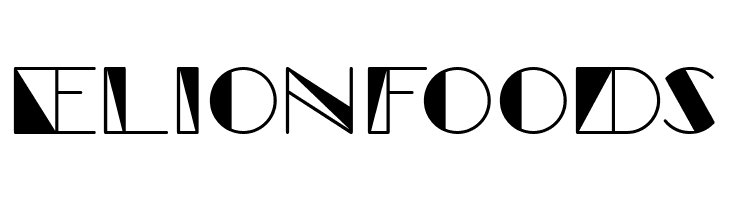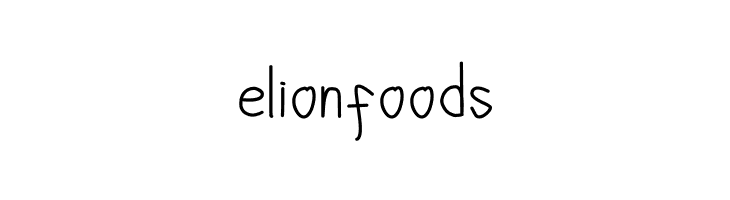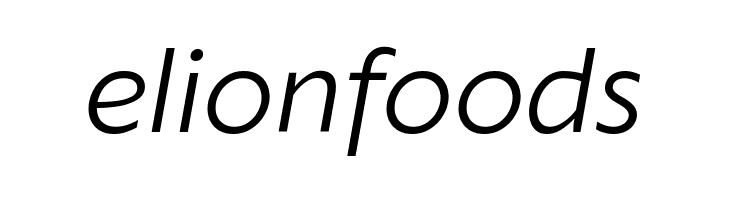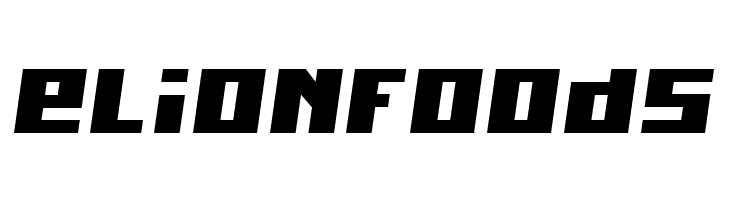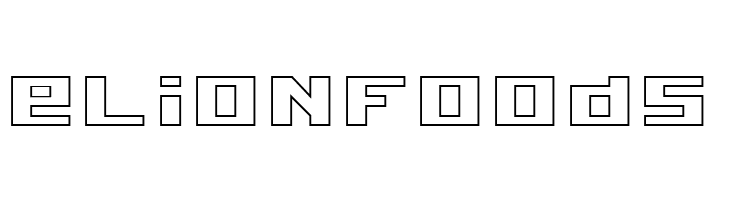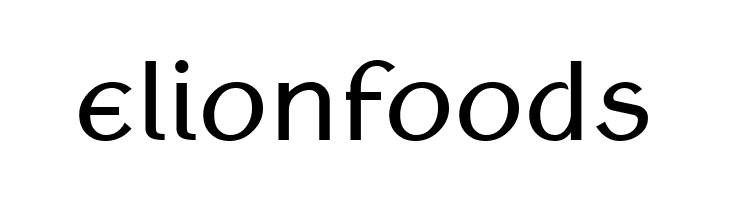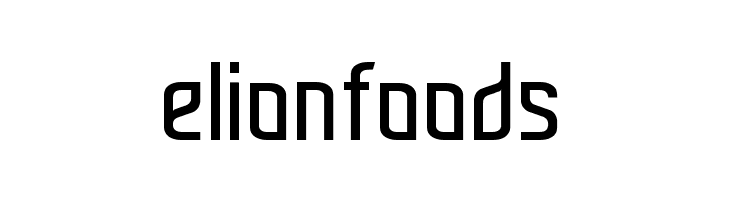
• Kiloton Condensed Italic
A bold, condensed, and italicized font with a modern, geometric style.
• Kiloton Outline
A bold, geometric outline font with a modern, futuristic aesthetic.
• Kiloton v1.0
A bold, geometric font with a modern, digital aesthetic.
• Kiloton v1.0 Italic
A bold, italic, and angular font with a modern and dynamic style.
• Kinley
A playful, handwritten font with irregular strokes and a casual vibe.
• Kitchen std
A modern, geometric font with clean lines and a compact appearance.
• Klaudia
• Klein Text Trial Book
A clean, modern sans-serif font with uniform stroke width and rounded characters.
• Klein Text Trial Book Italic
A modern, italic font with clean lines and a professional appearance.
• Kosaken Book Regular
A modern, geometric font with high contrast and artistic flair.